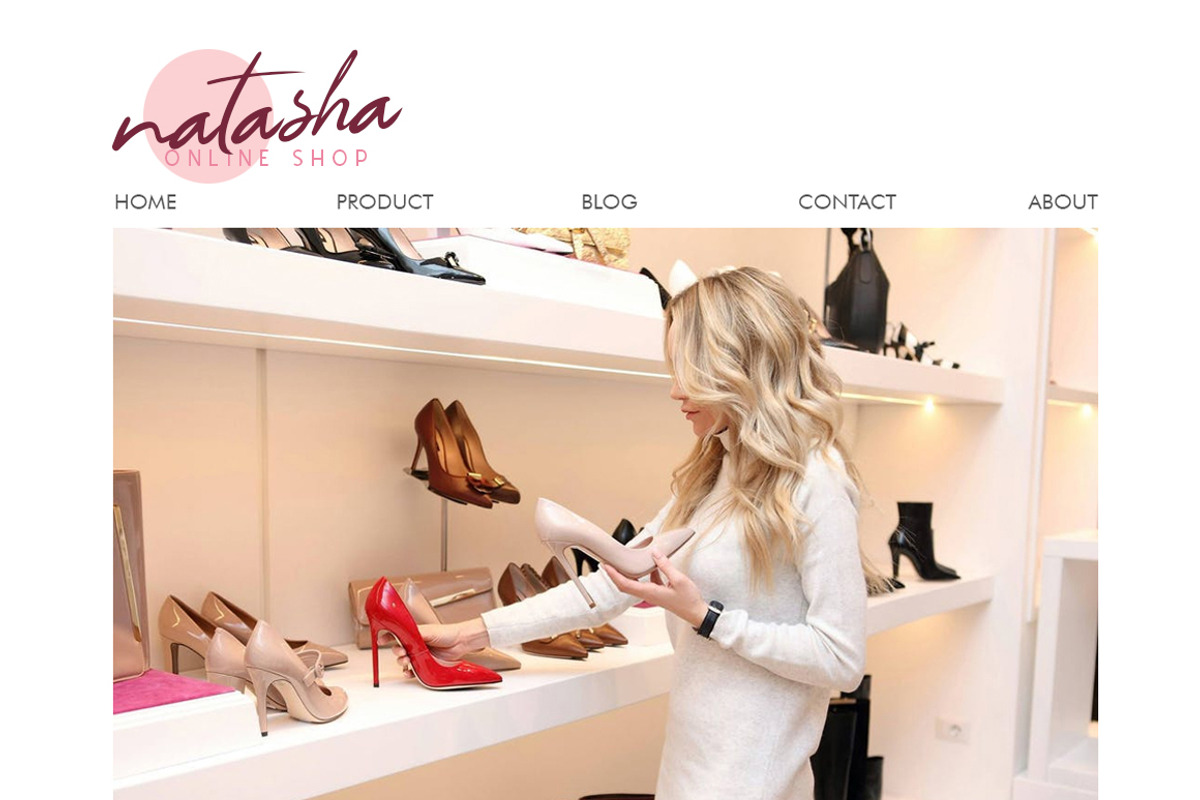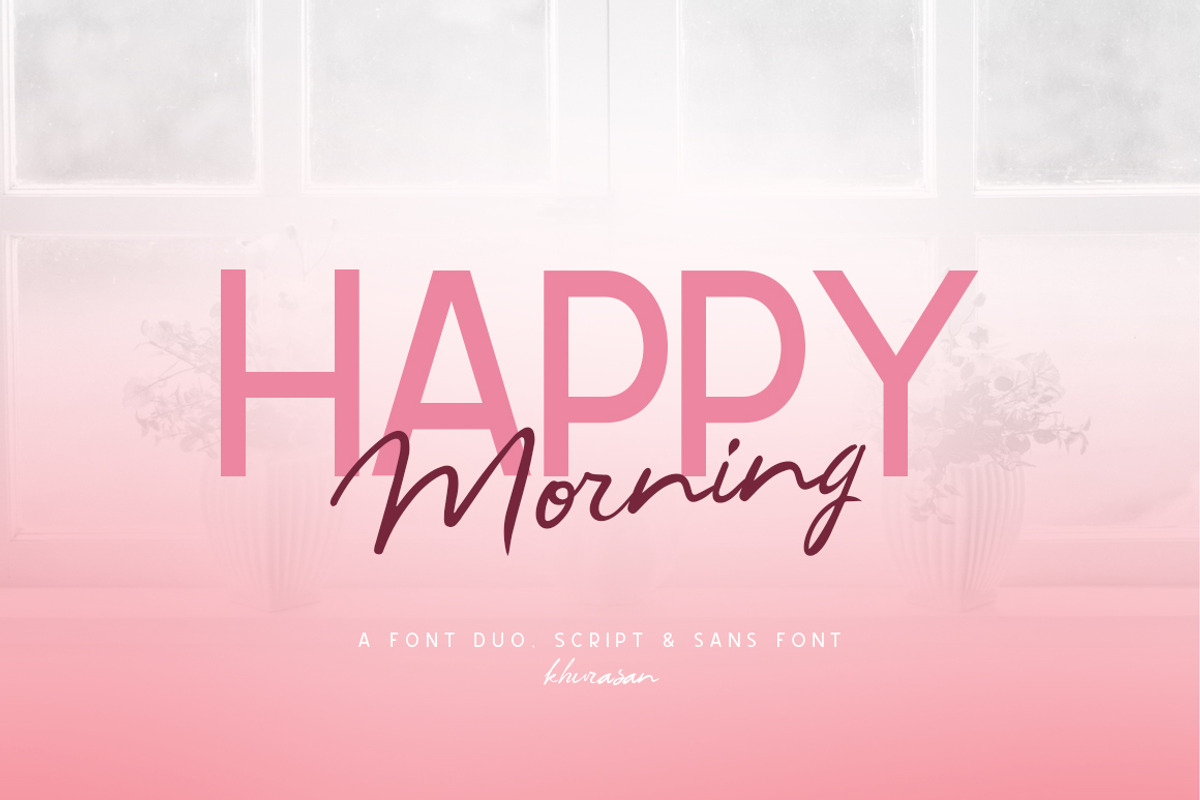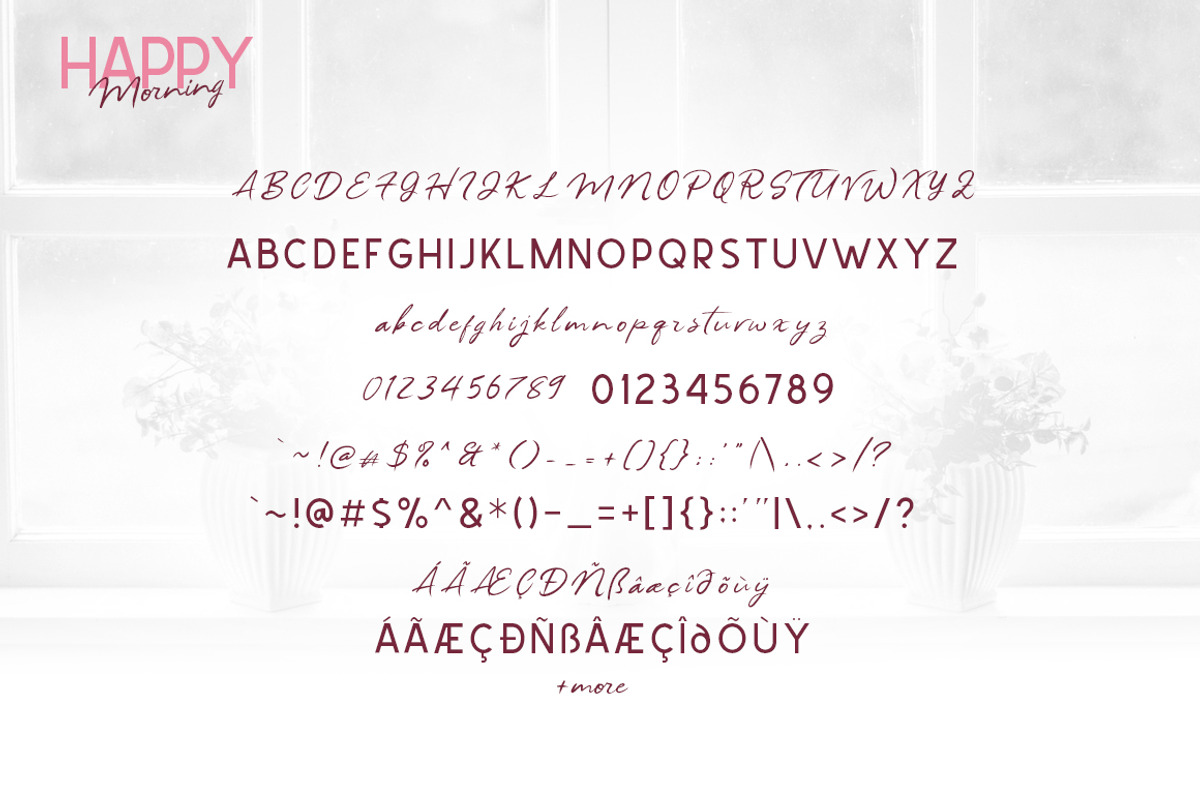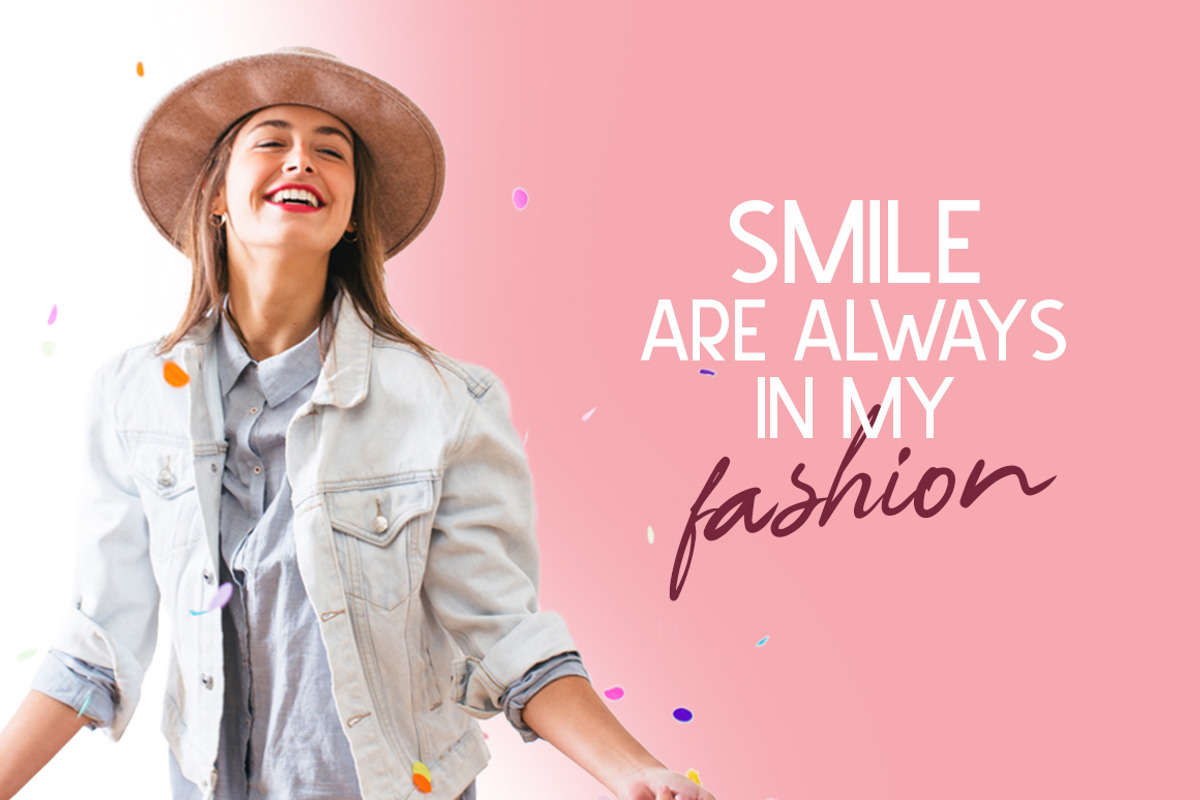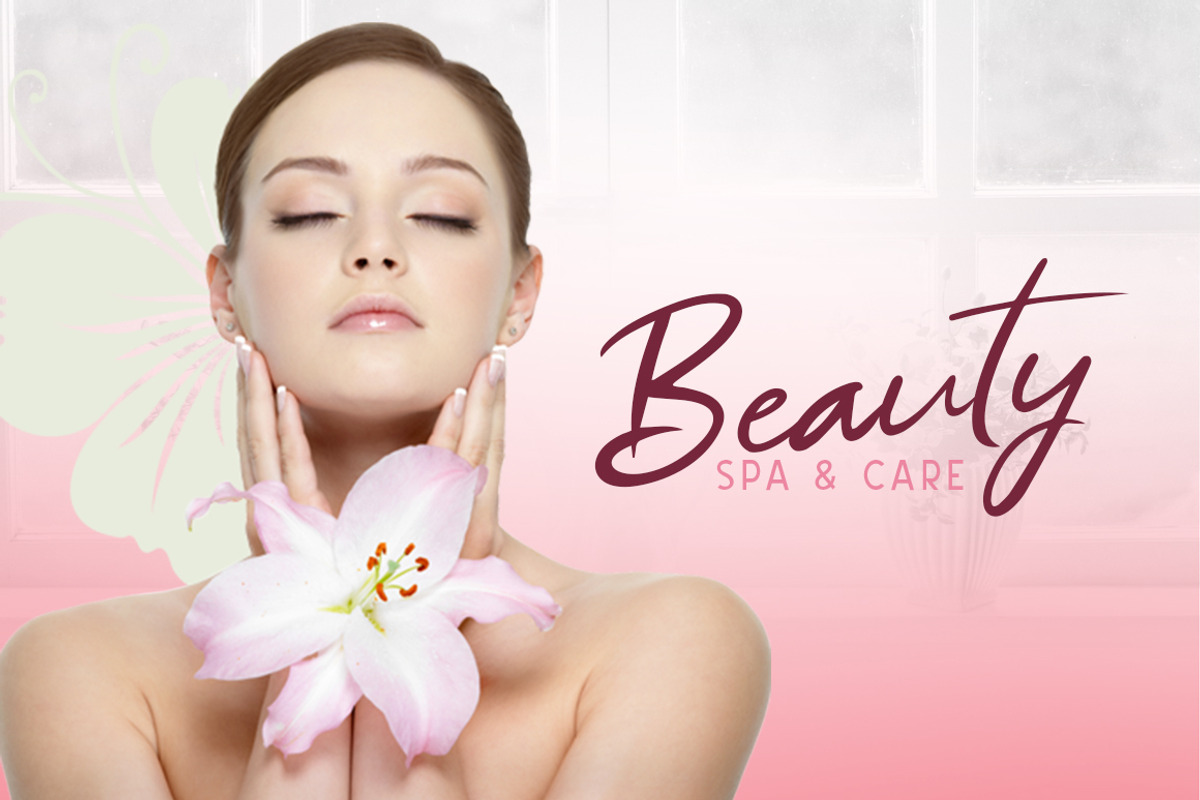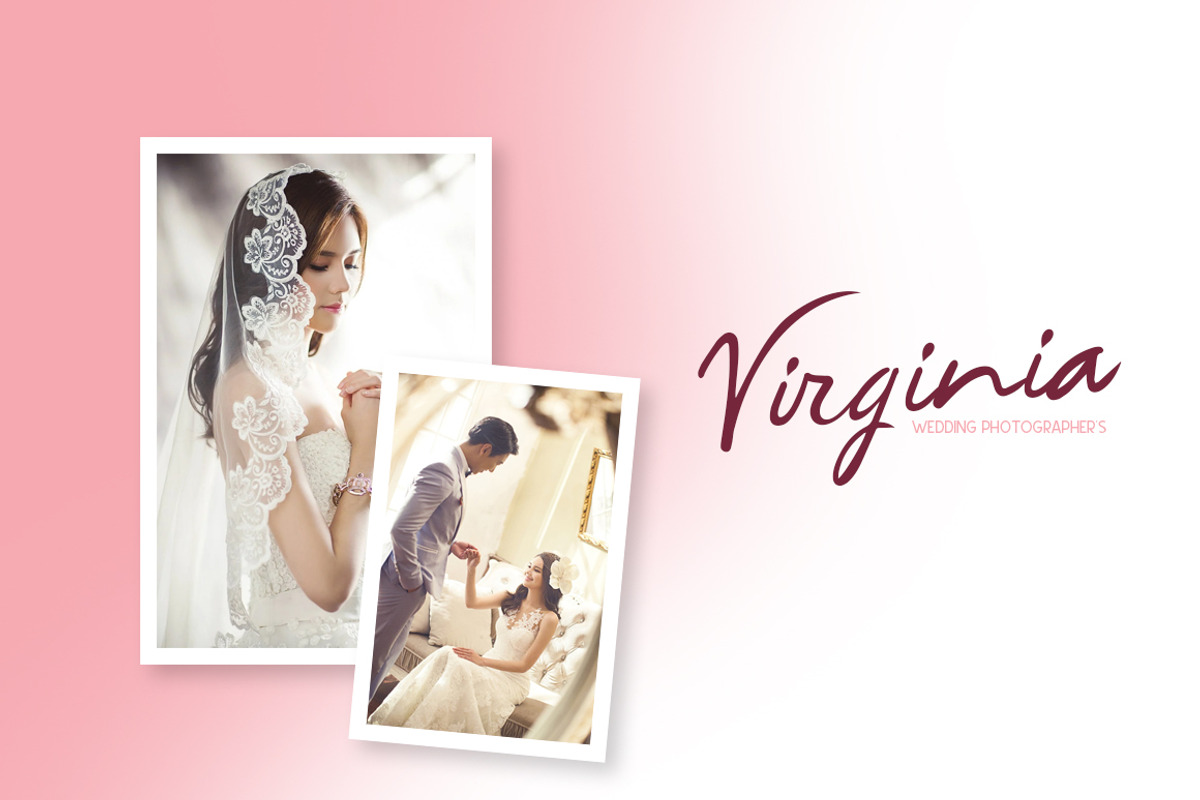
Happy Morning Font Duo
The Happy Morning Font is a fun modern script font, fresh & modern style with Sans font. You can combine script and sans to get amazing results. Happy Morning Font suitable for logo, branding, greeting card, poster and any design that you create.